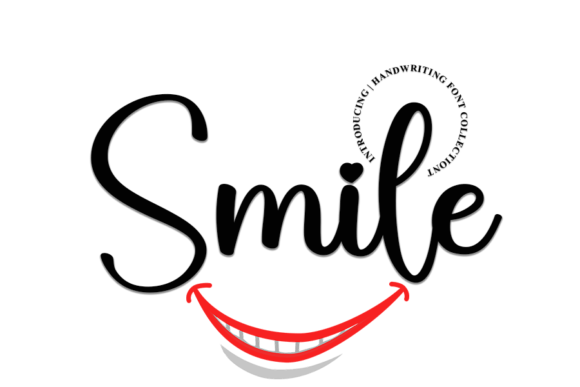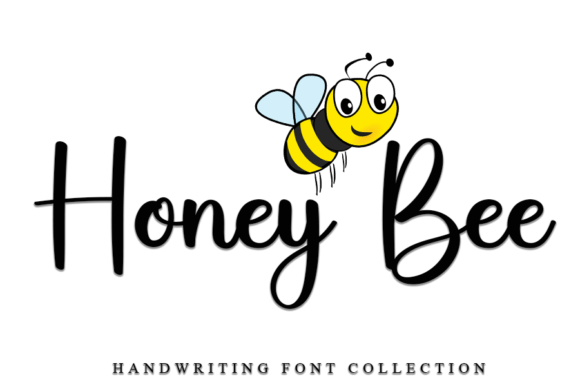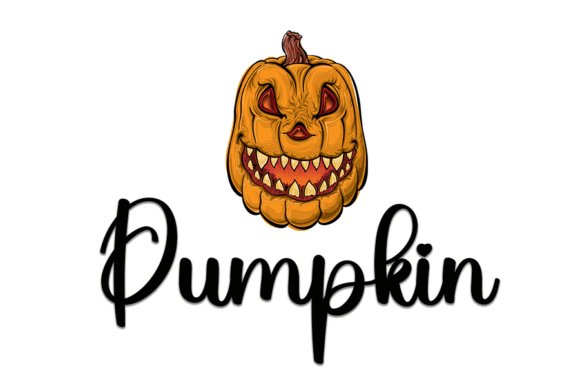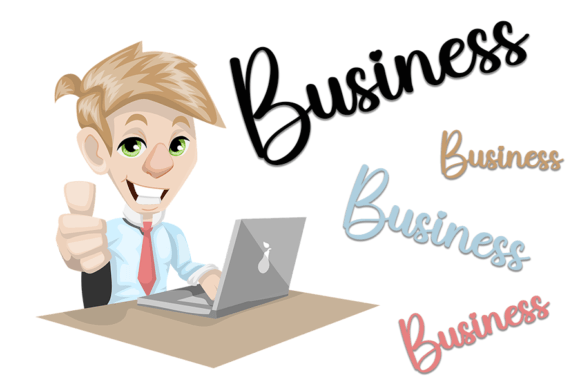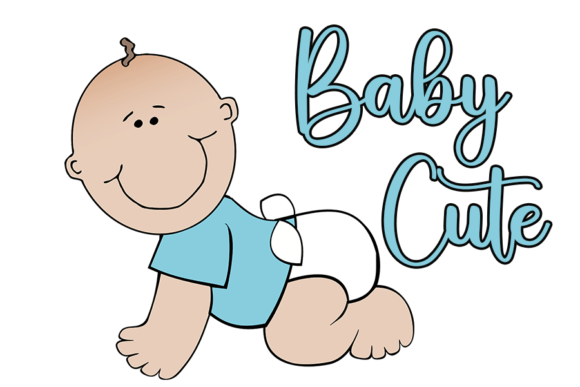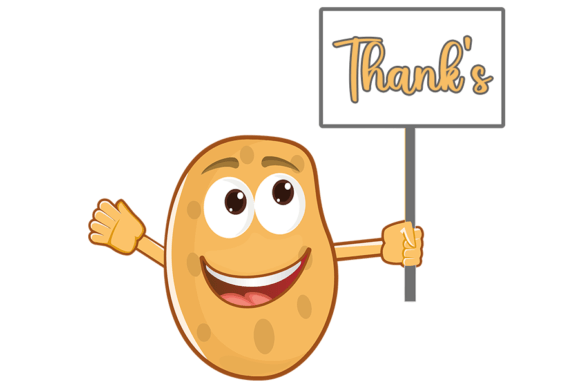
Smile Script Font – Bold and Beautiful Typeface
The Smile Script Font is a bold and elegant typeface designed to bring personality and strength to your creative projects. With its confident strokes and flowing handwritten style, this font is perfect for both personal and professional designs. Whether you’re working on invitations, posters, or digital artwork, it ensures your creations stand out with beauty and character.
A Script with Bold Personality
The Smile Script Font combines the elegance of calligraphy with a modern bold style. Its strong strokes create visual impact, while its smooth curves keep it approachable and versatile. Because of this balance, it adapts seamlessly to both print and digital projects, giving each design a unique and stylish edge.
One of the most popular uses of the Smile Script Font is in invitations and greeting cards. Wedding stationery, thank-you notes, and birthday cards feel more expressive and luxurious with this typeface. At the same time, it shines in posters, logos, and branding, where a bold handwritten script can make a lasting impression.
The Smile Script Font adapts effortlessly to many different applications. From social media graphics and product packaging to decorative quotes and digital branding, it adds a bold handwritten charm that feels both modern and timeless. Its flexibility ensures it becomes a trusted font in your collection.
Why Designers Love Smile Font
Designers love the Smile Script Font because it combines elegance with usability. Its bold, flowing strokes bring power and personality to creative projects, while its readability guarantees professional-quality results. This makes it a must-have font for designers who want to merge creativity with clarity.
In summary, the Smile ScripFont is a bold, beautiful, and versatile typeface. With its strong handwritten style, quick installation, and wide usability, it is perfect for invitations, posters, crafts, and branding. Don’t miss the chance to download Smile ScriptFont and bring bold handwritten elegance to your next creative project.